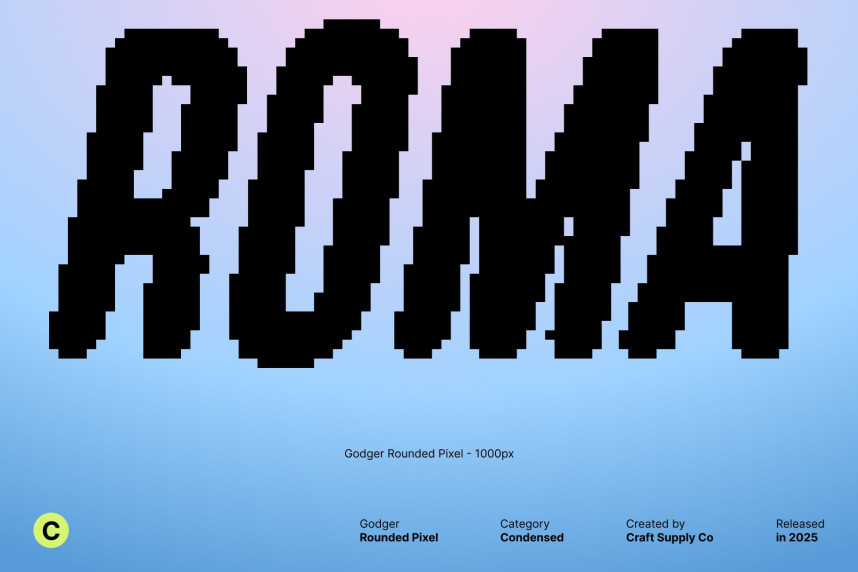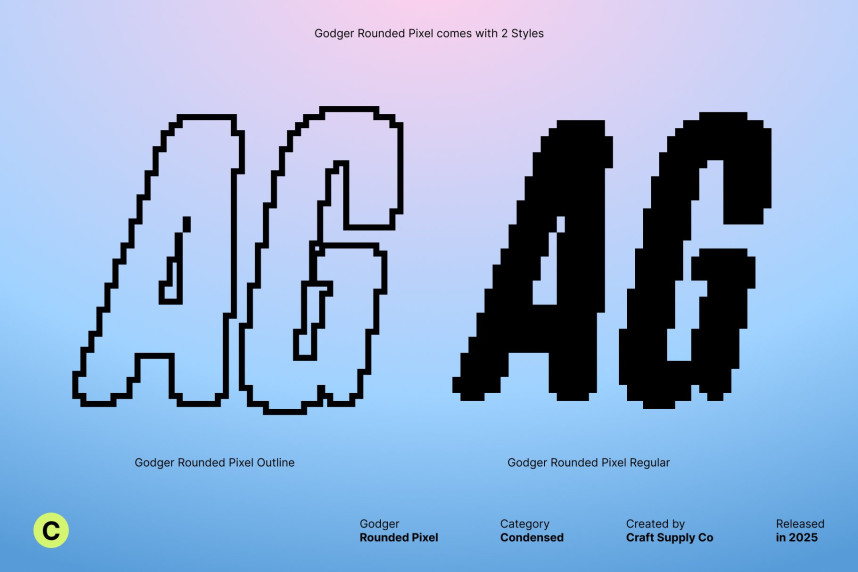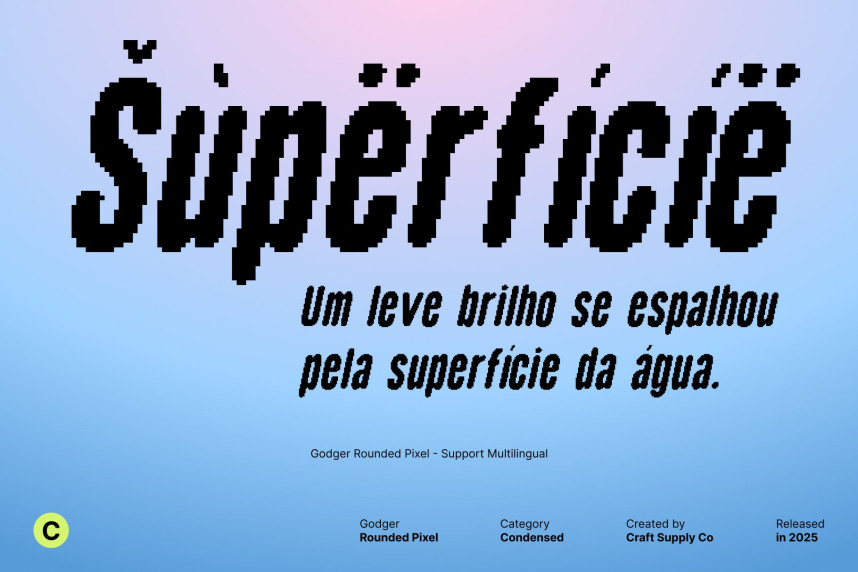
Godger Rounded Pixel Font
Godger Rounded Pixel Font – Condensed Rounded Pixel Sans Serif Modern Shapes with a Fresh, Contemporary Feel. This condensed sans serif font blends bold weight, rounded forms, and pixel-inspired detailing to create a distinctly modern appearance. The combination of smooth curves and digital pixel texture gives each character a clean yet visually striking presence, making the font stand out in any layout.